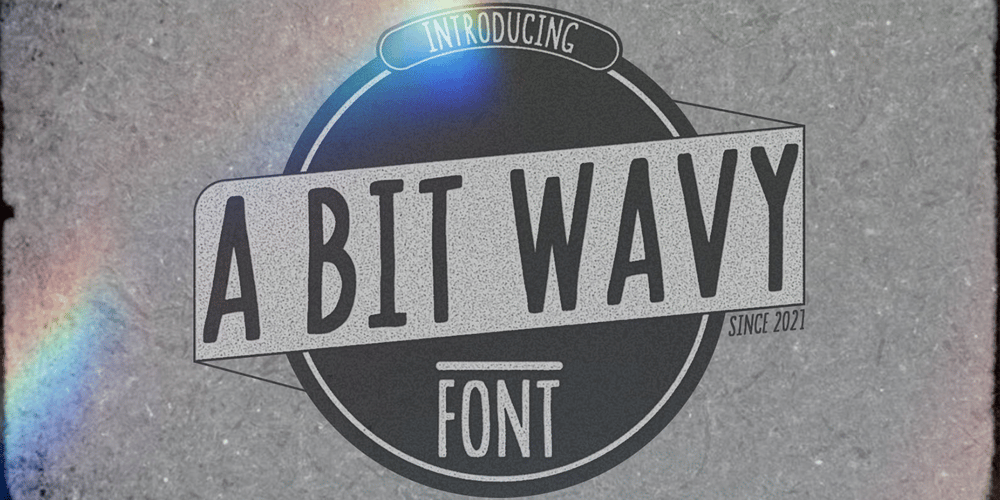
A Bit Wavy Font Family was designed by Mohammed Lamjidi and published by Beast Designer. A Bit Wavy contains 1 styles and family package options. A Bit Wavy Font is a simple, vintage styled sans serif font. It can easily be matched to an incredibly large set of projects, so add it to your creative ideas and notice how it makes them stand out!–Uppercase